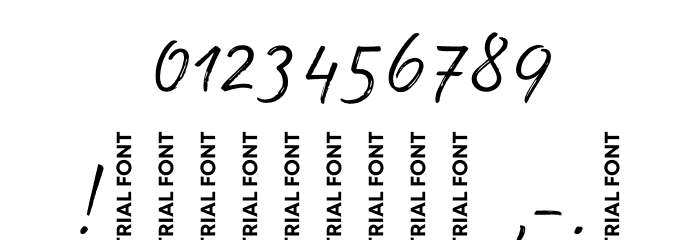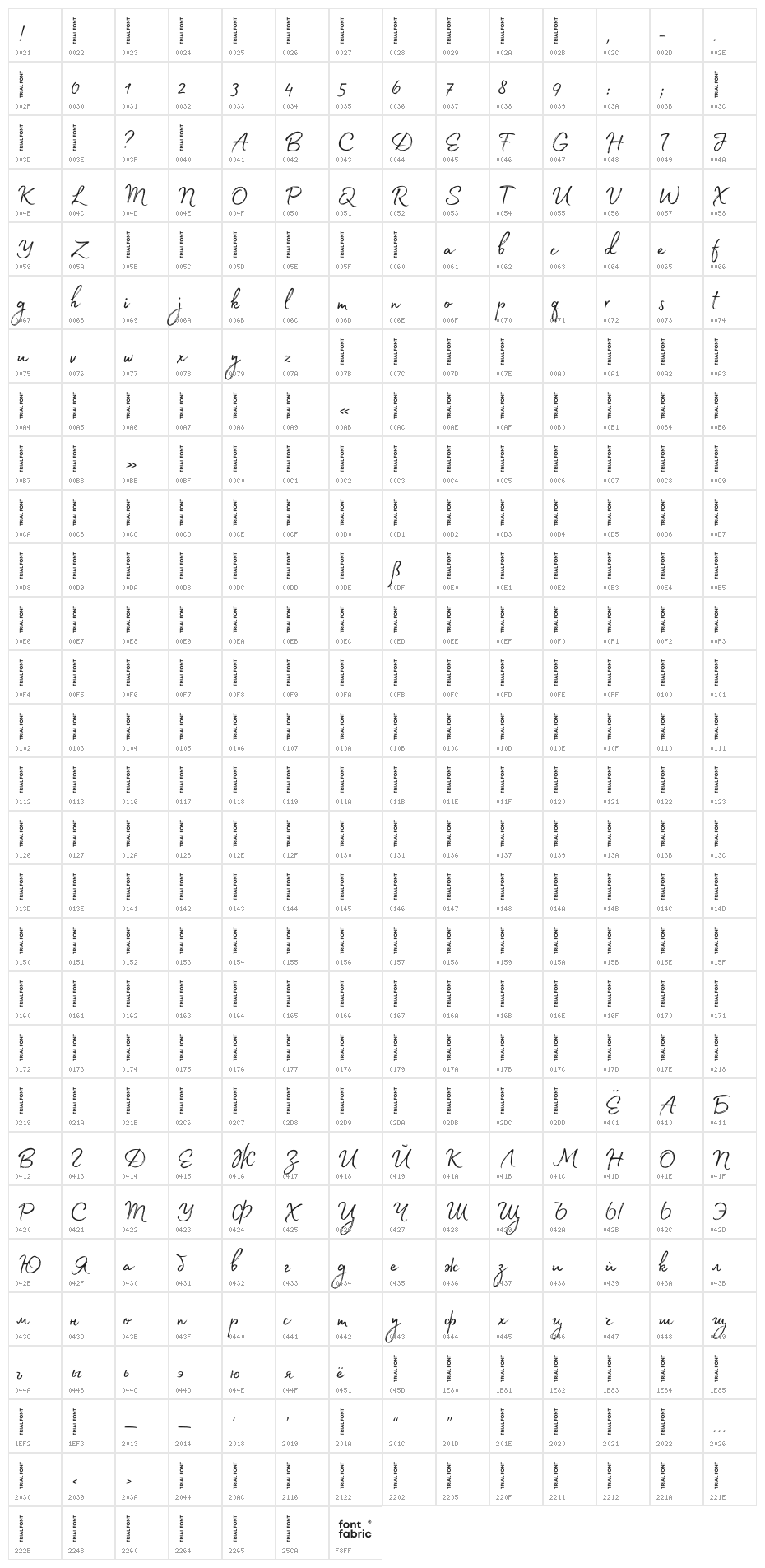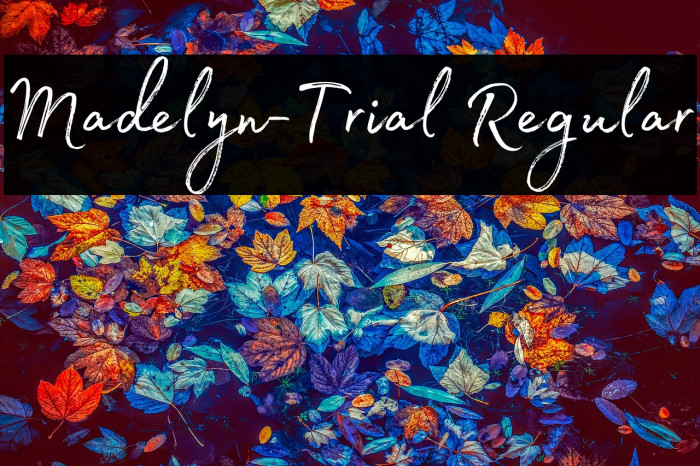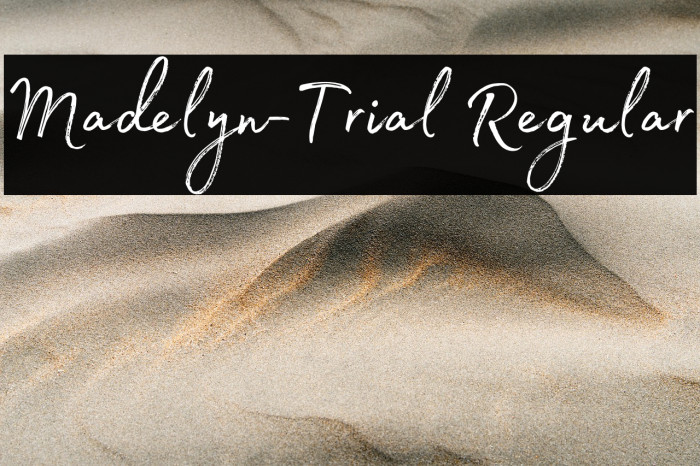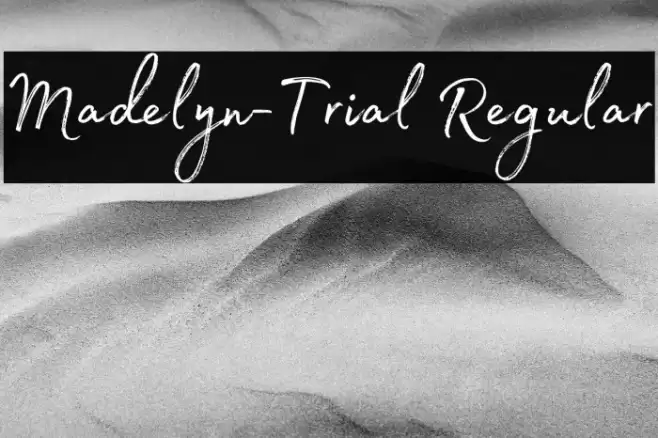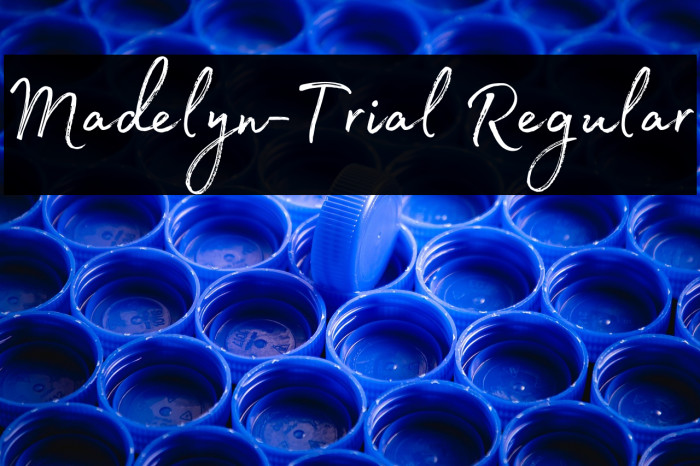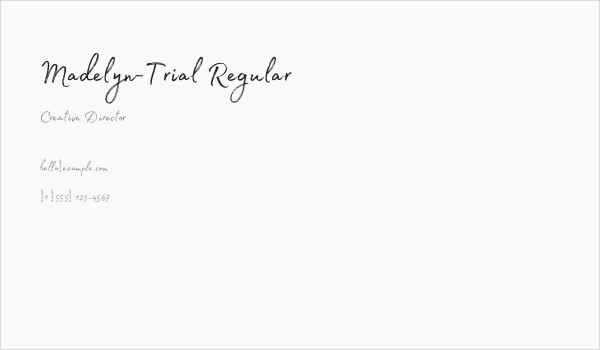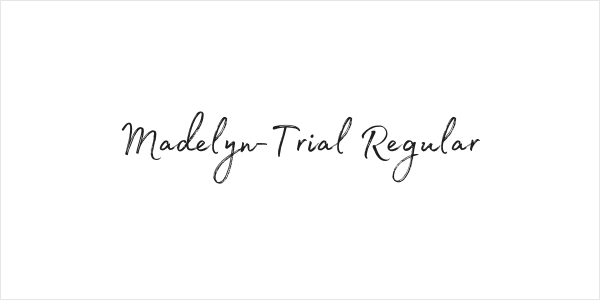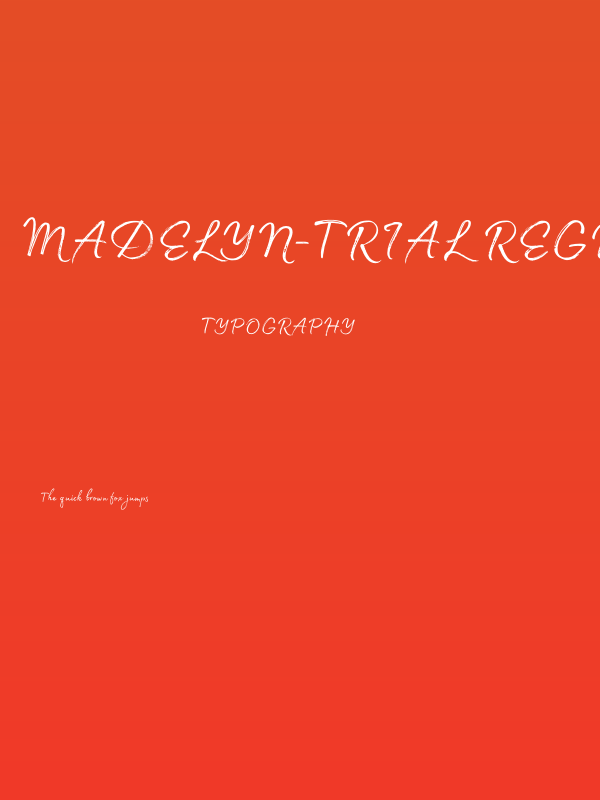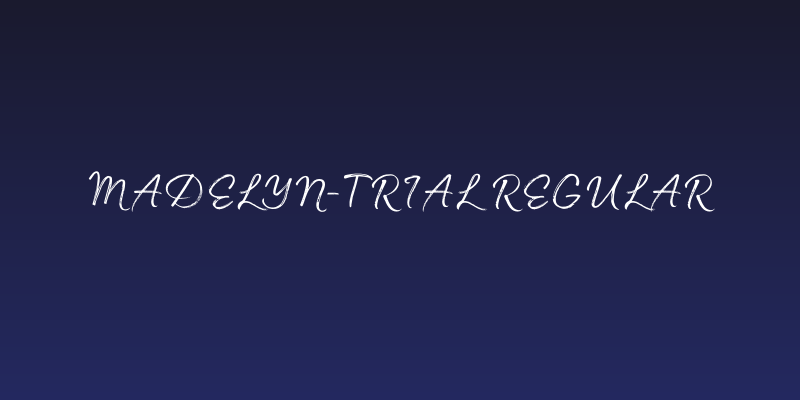
Madelyn-Trial Regular Font
This elegant script font features a flowing, cursive style with a handwritten appearance. The letters are gracefully connected, creating a sense of fluidity and movement. The strokes are varied, with some letters having thicker downstrokes and thinner upstrokes, adding to the dynamic feel. The uppercase letters are slightly more ornate, while the lowercase letters maintain a consistent, smooth flow. The numerals and special characters are designed to match the overall aesthetic, making this font versatile for various applications.
A flowing, cursive script font with a handwritten style.
• Proposed Projects: Ideal for wedding invitations, greeting cards, personal branding, and elegant logo designs.
• Category: Script
• Overall Style: Elegant, Handwritten
• Use Case: Logos, Invitations, Personal Branding